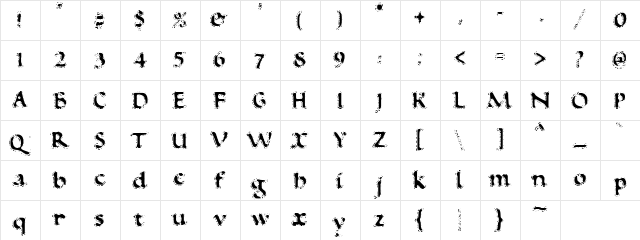
VTC AntiqueFizz Reguar
Design Context for VTC AntiqueFizz Typeface
VTC AntiqueFizz wears its vintage influences proudly, with letterforms that recall mid-century signage, classic packaging, and nostalgia-driven design.
Font Pairing: Combine VTC AntiqueFizz with a simple slab or neutral sans — period-accurate companions reinforce the vintage feel without competing for attention.
Pro Tip: Use VTC AntiqueFizz for headlines and pull quotes rather than body copy — its personality is best appreciated in short, focused bursts.